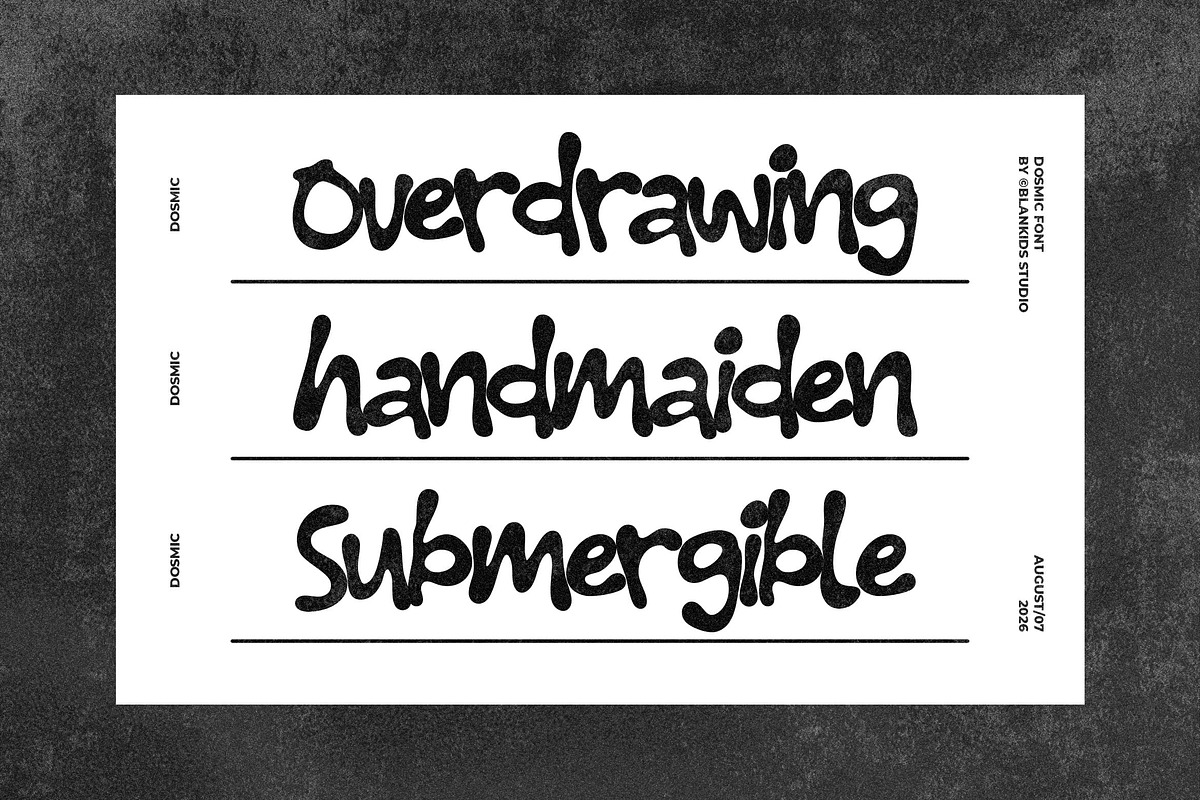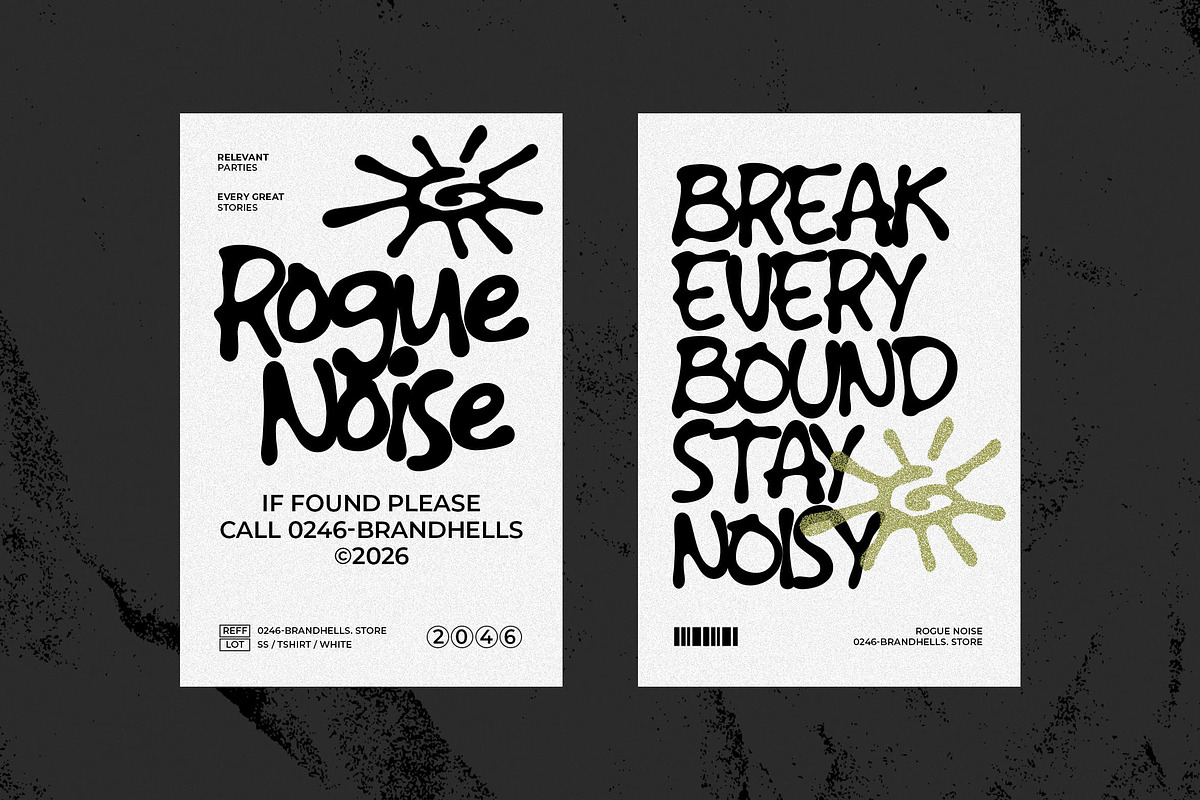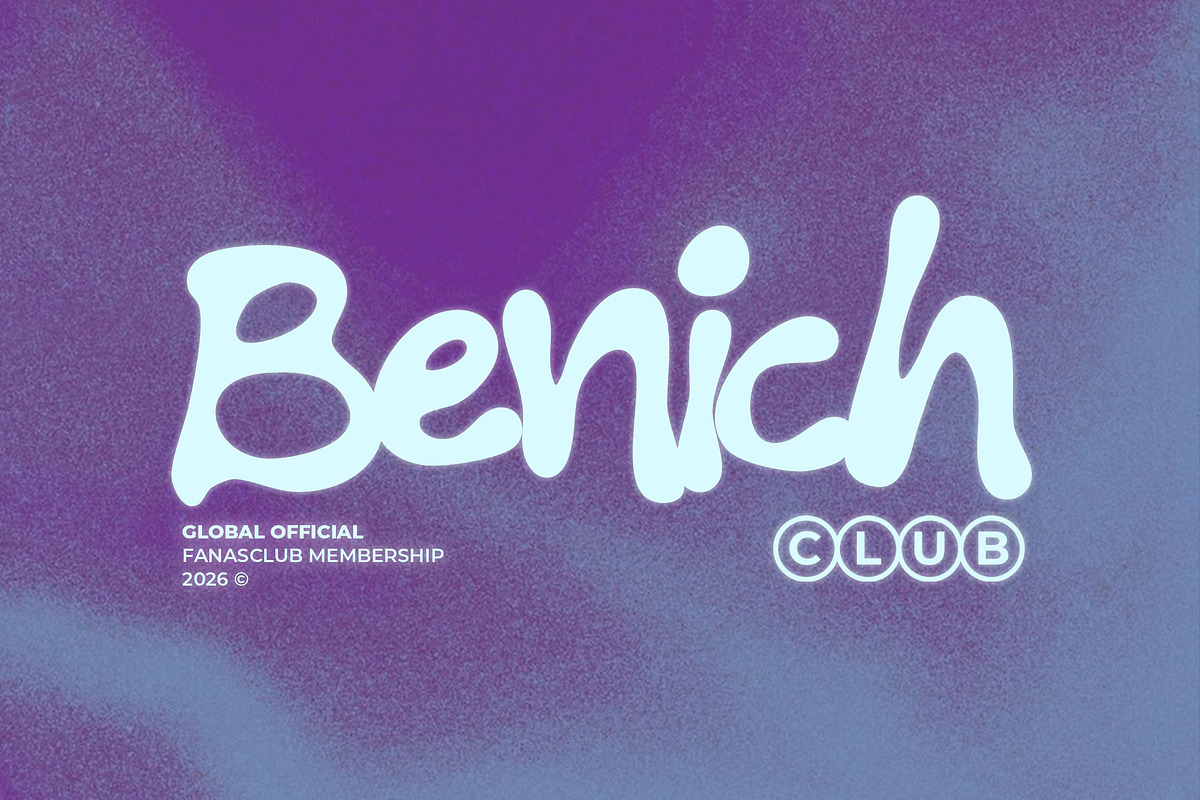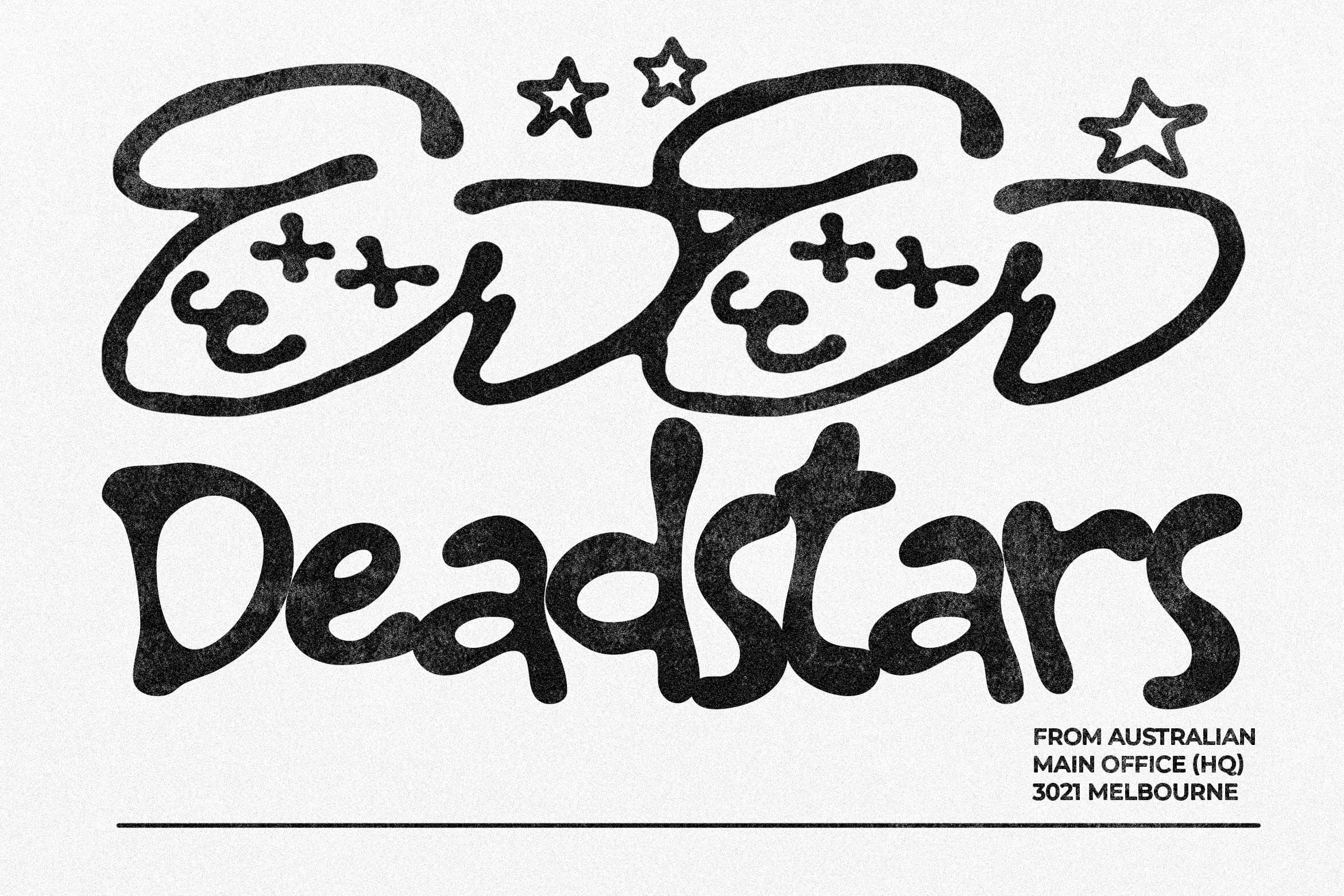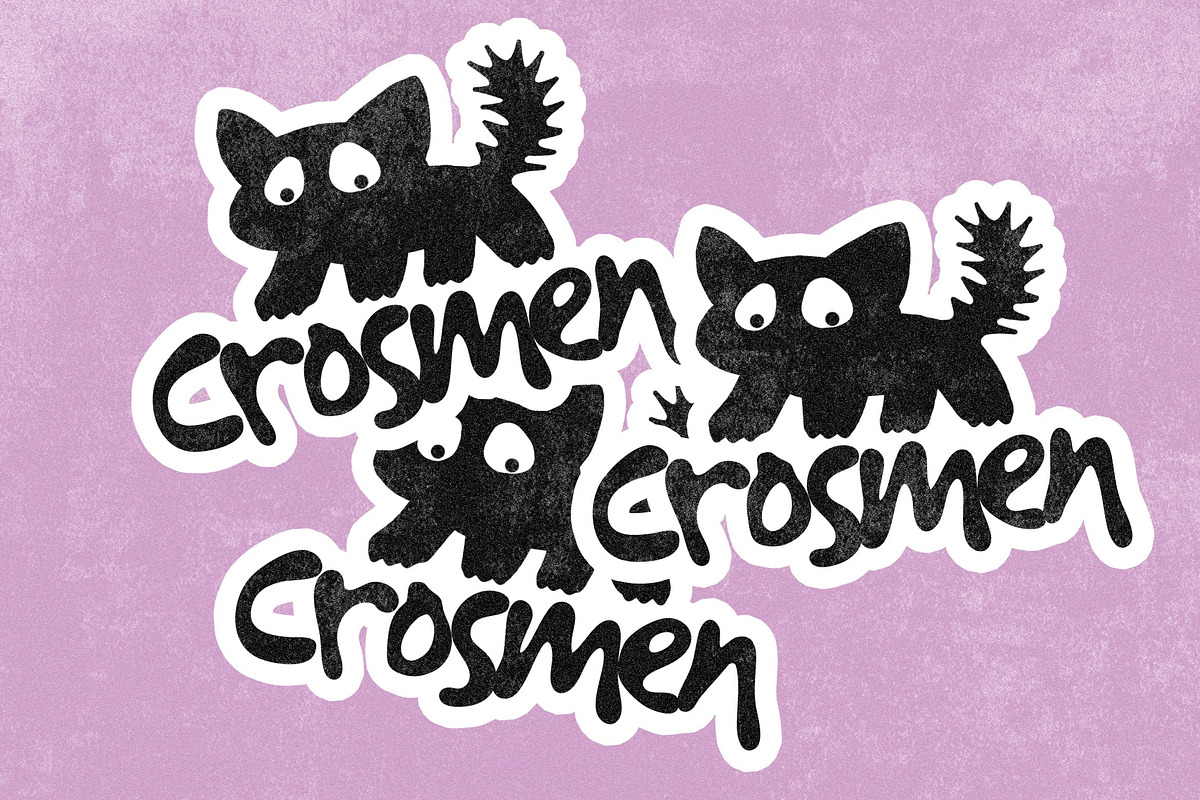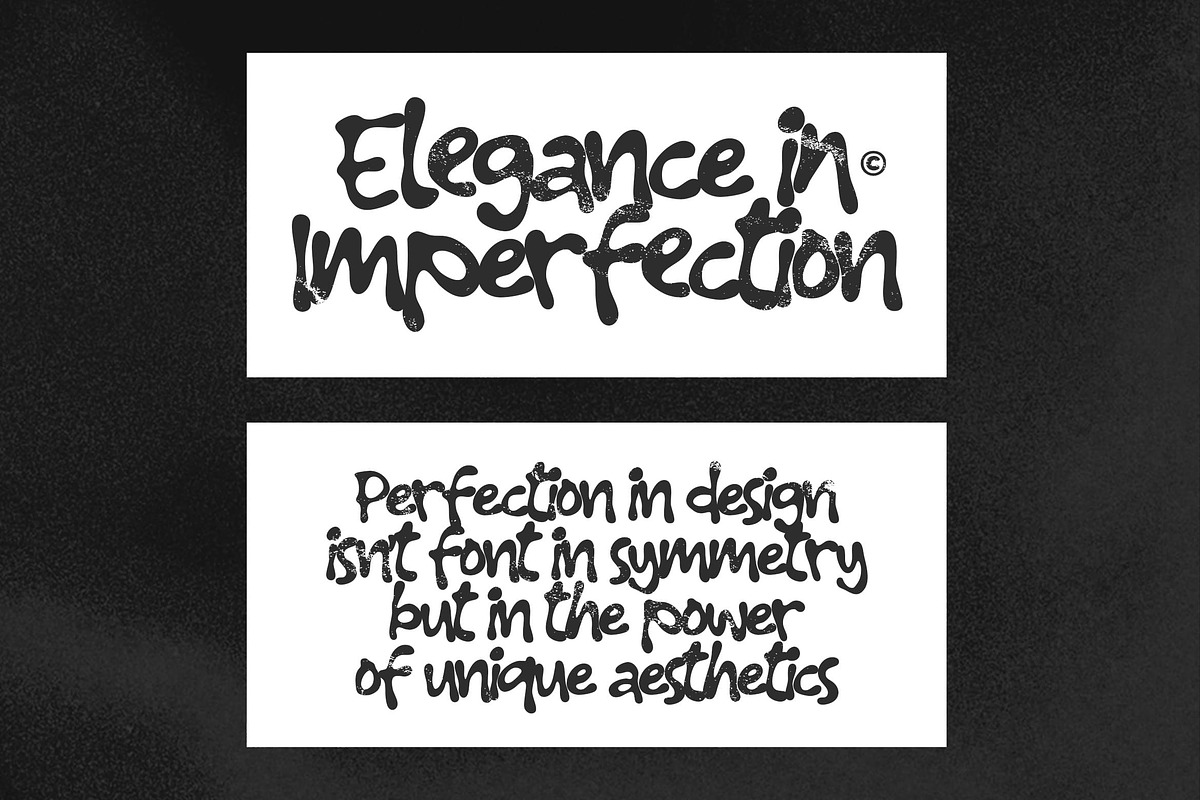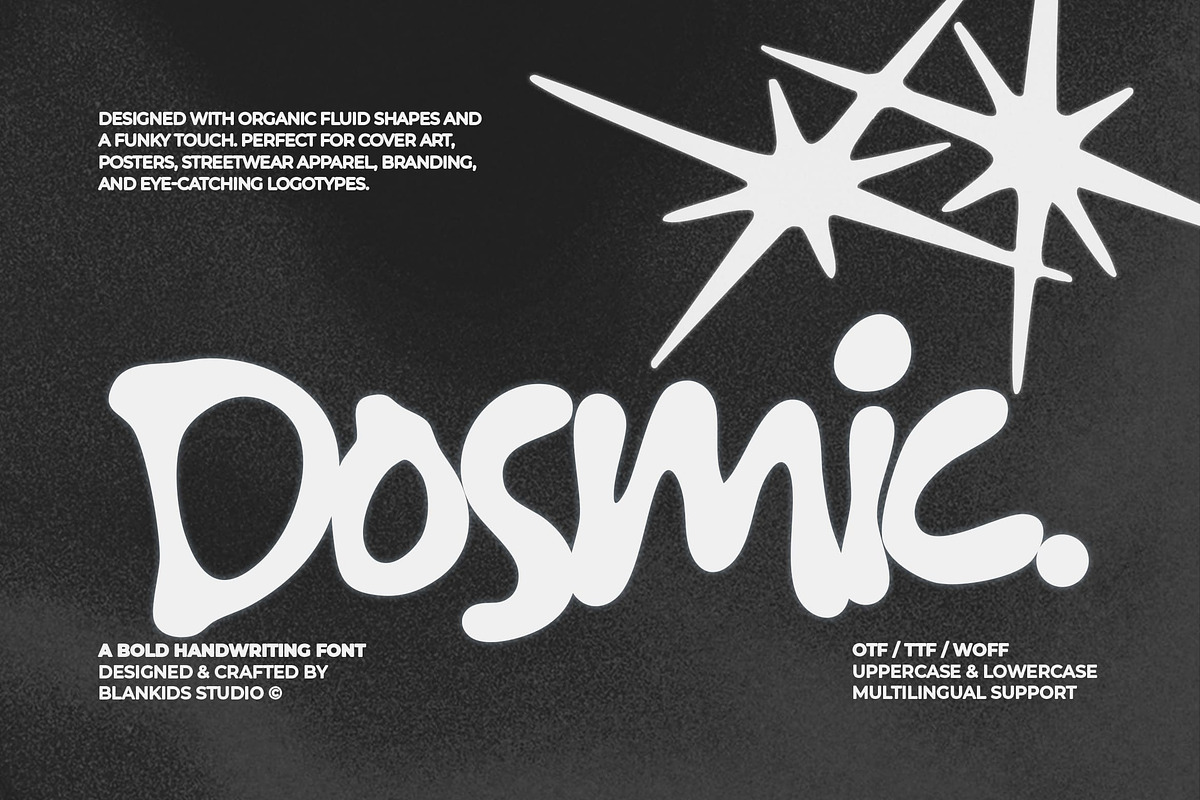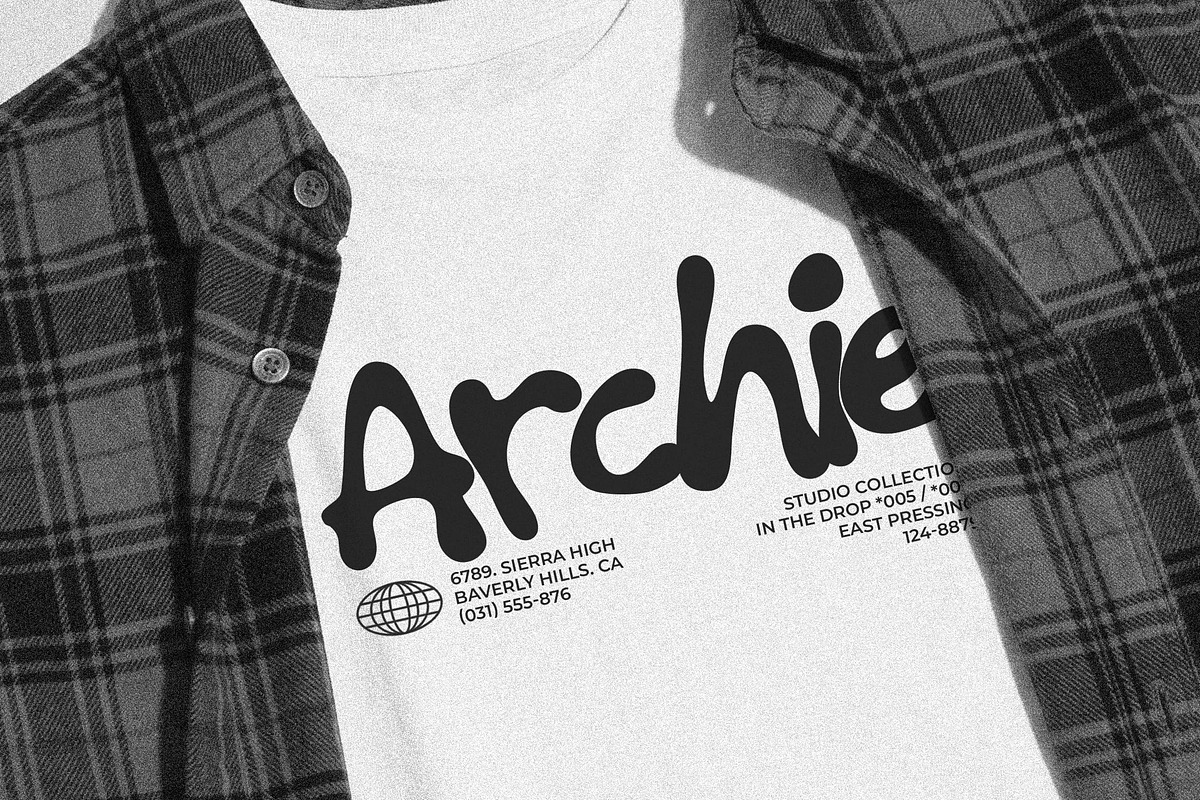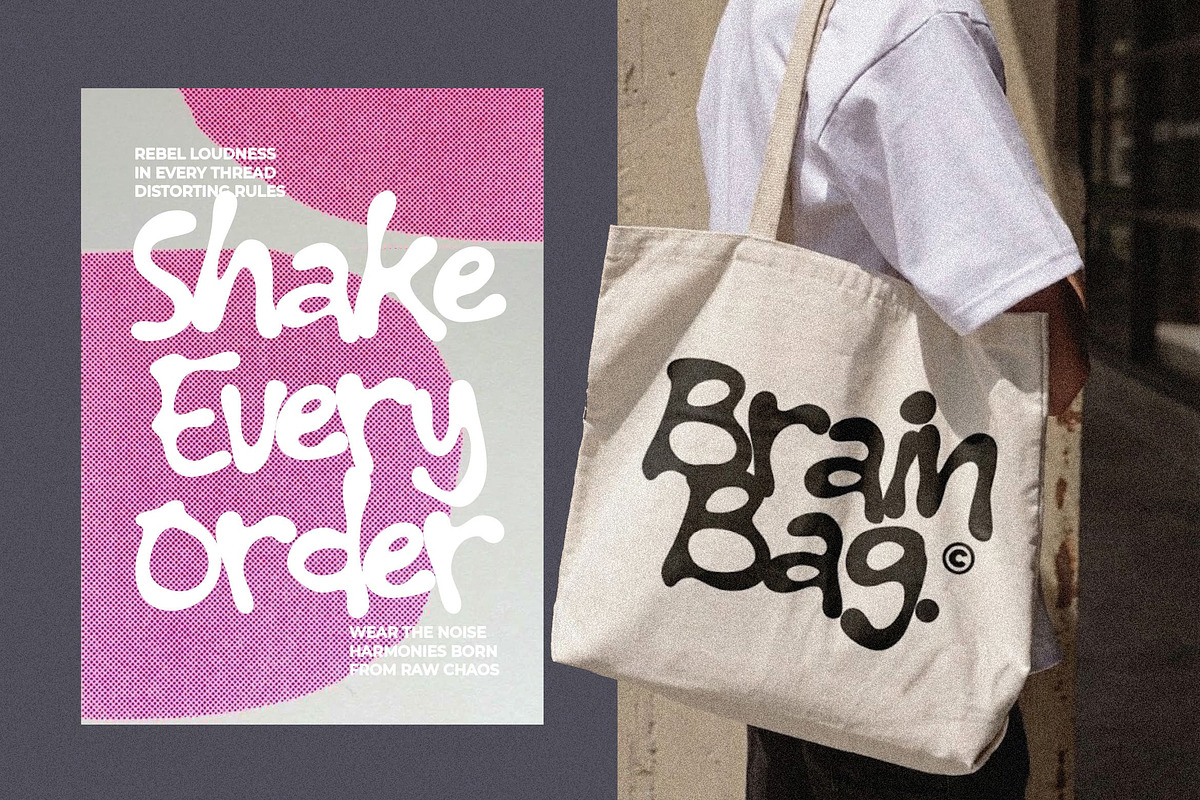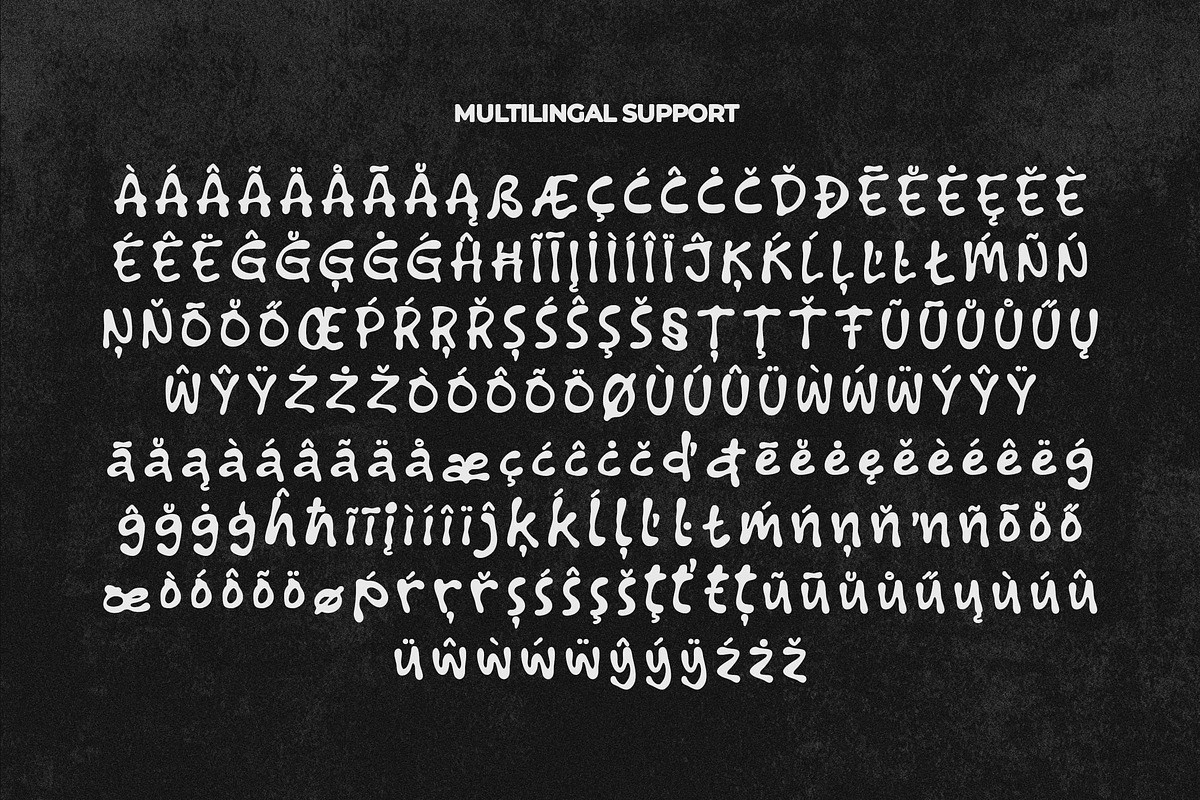
Dosmic - Organic Fluid Display Font
Dosmic is a bold, expressive handwriting font designed with organic fluid shapes and a vibrant funky touch. Breaking away from rigid symmetry, Dosmic brings raw character, high energy, and an unmistakable aesthetic attitude to your creative projects.
Crafted with a naturally distorted fluid rhythm, this font is built to stand out on album covers, streetwear merch, Y2K-inspired branding, posters, and bold logotypes. Whether you are designing for modern streetwear brands, music festivals, or eye-catching social media graphics, Dosmic delivers maximum visual punch.
✨ KEY FEATURES
Bold Organic & Fluid Letterforms: Unique handwritten curves that feel alive and authentic.
Uppercase & Lowercase Characters: Flexible combinations for distinct design compositions.
Numbers, Punctuation & Symbols: Complete essential set for seamless workflow.
Multilingual Support: Works effortlessly across multiple languages.
🎯 PERFECT FOR
Streetwear & Apparel Design (T-shirts, hoodies, tote bags, caps)
Music & Cover Art (Album covers, posters, gig flyers, vinyl sleeves)
Branding & Eye-Catching Logotypes
Packaging & Merchandise
Social Media Graphics, Headlines & Editorial Display